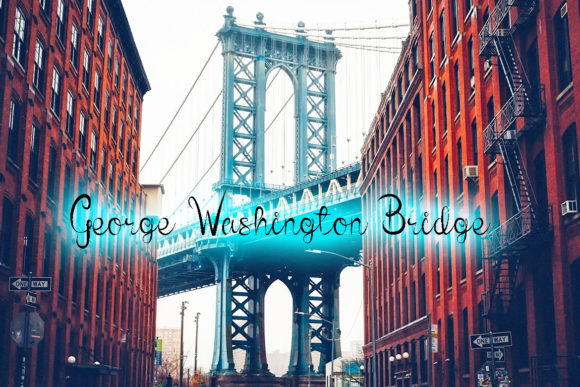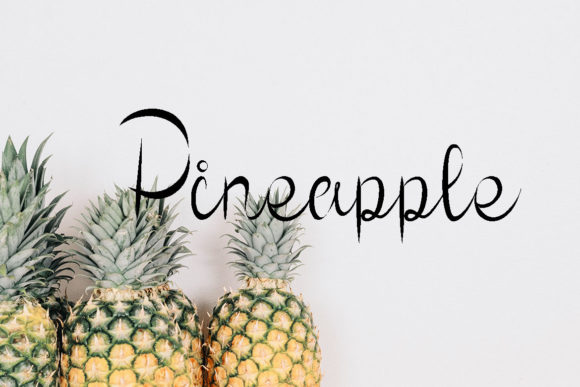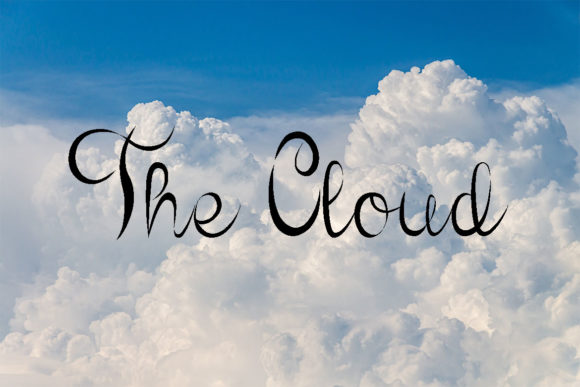
Introduction to HelastiK Font
HelastiK is a distinct and beautiful script font.
Fall in love with its incredibly versatile style and use it to create gorgeous wedding invitations, beautiful stationary art, eye-catching social media posts, and much more .
HelastiK Font offers exceptional quality and versatility, making it a valuable addition to your design toolkit. Whether you’re creating for personal projects or commercial use, HelastiK Font delivers professional results.